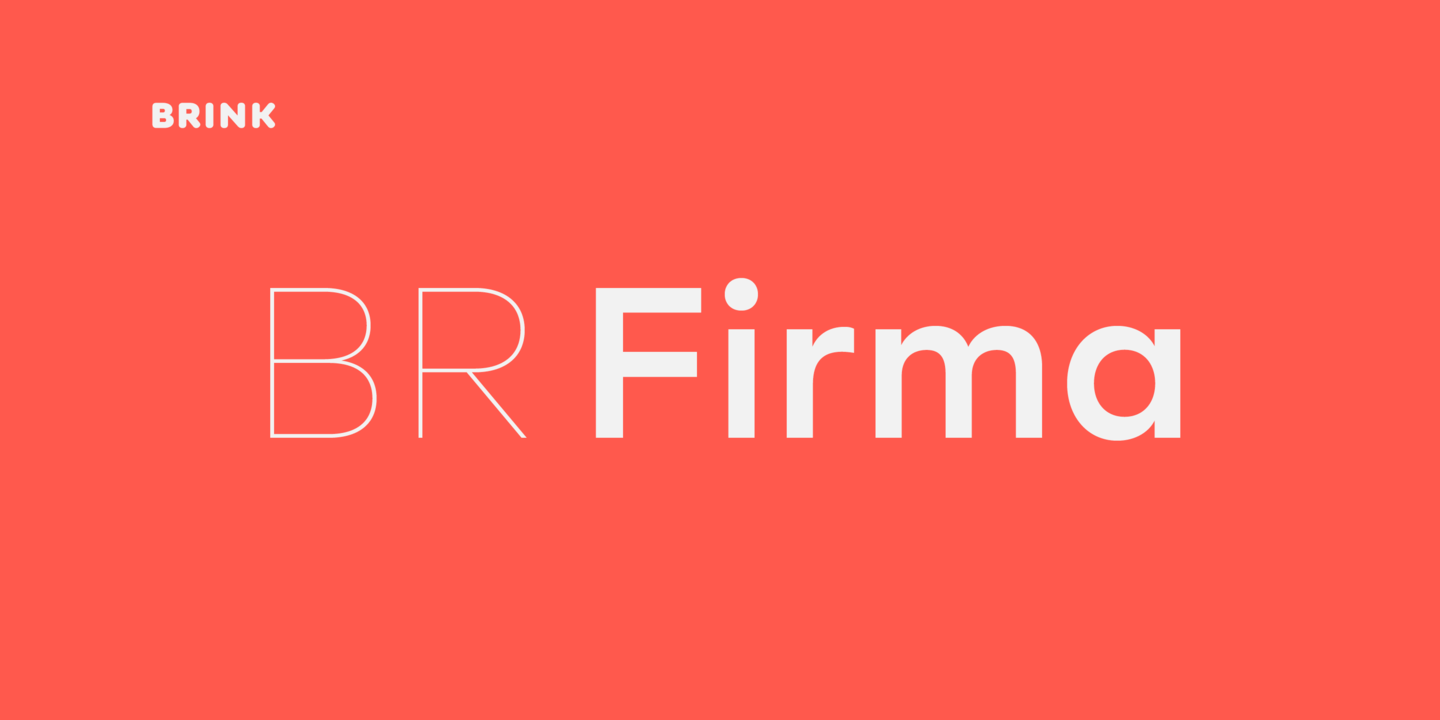
BR Firma Font Family
BR Firma Font
BR Firma is a geometric sans serif font family consisting of 8 weights ranging from Thin to Black with matching italics. It supports an ‘Extended Latin’ character set that covers over 200 latin based languages. BR Firma provides advanced typographic support with features such as case sensitive forms, fractions and slashed zeros.
It comes with multiple figure sets and is ideal for print, advertising, publishing, branding, software and gaming as well as being optimised for web and screen design.
BR Firma Sans Serif Font Family